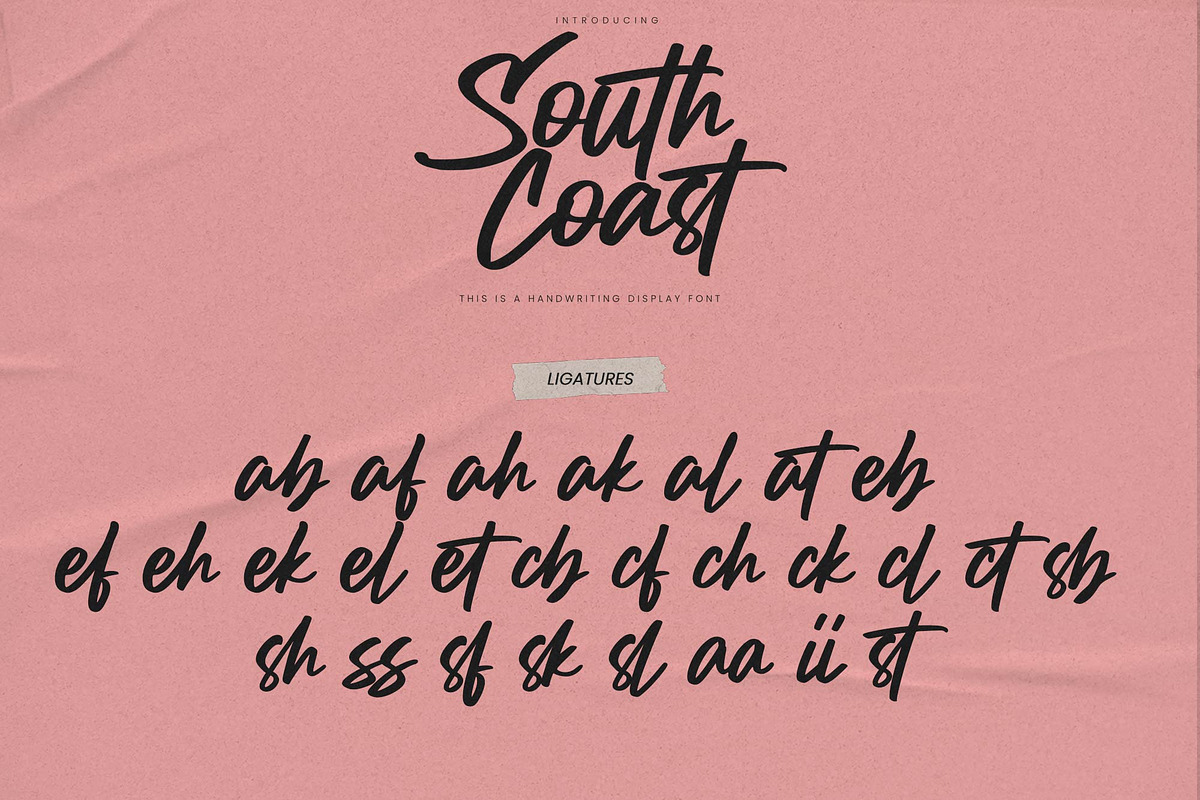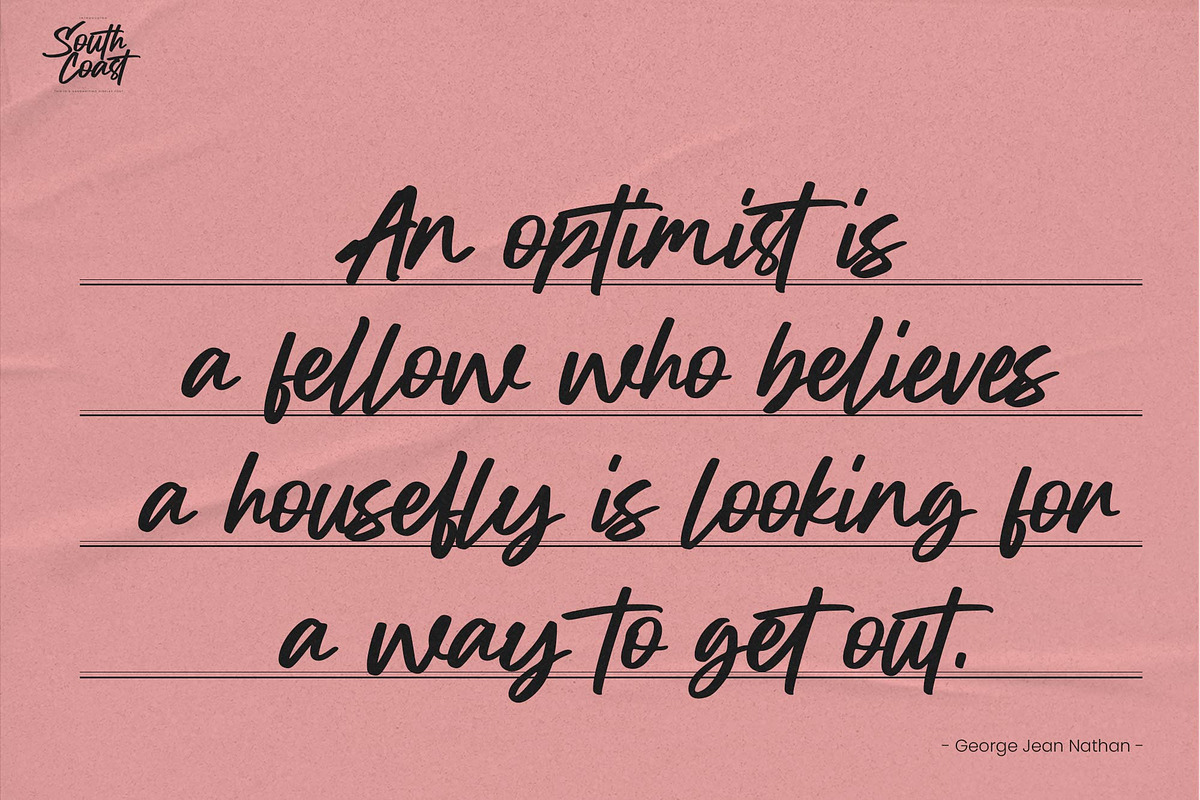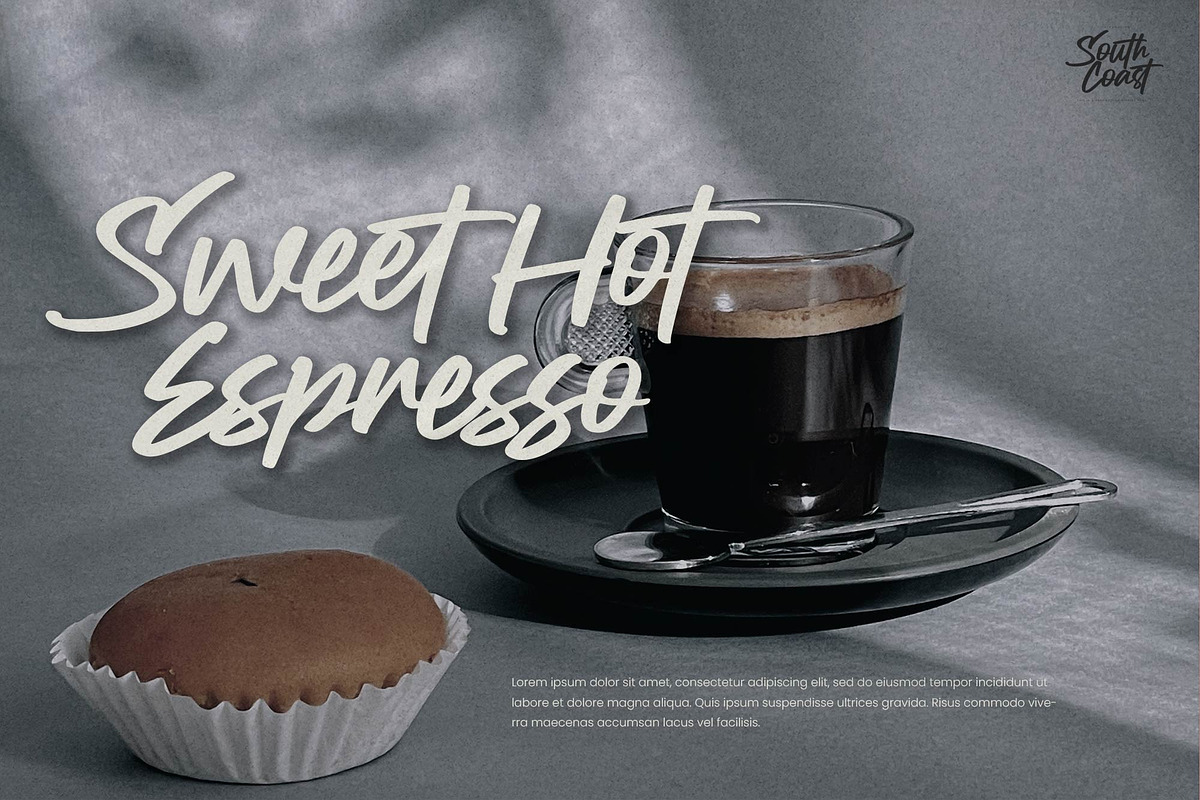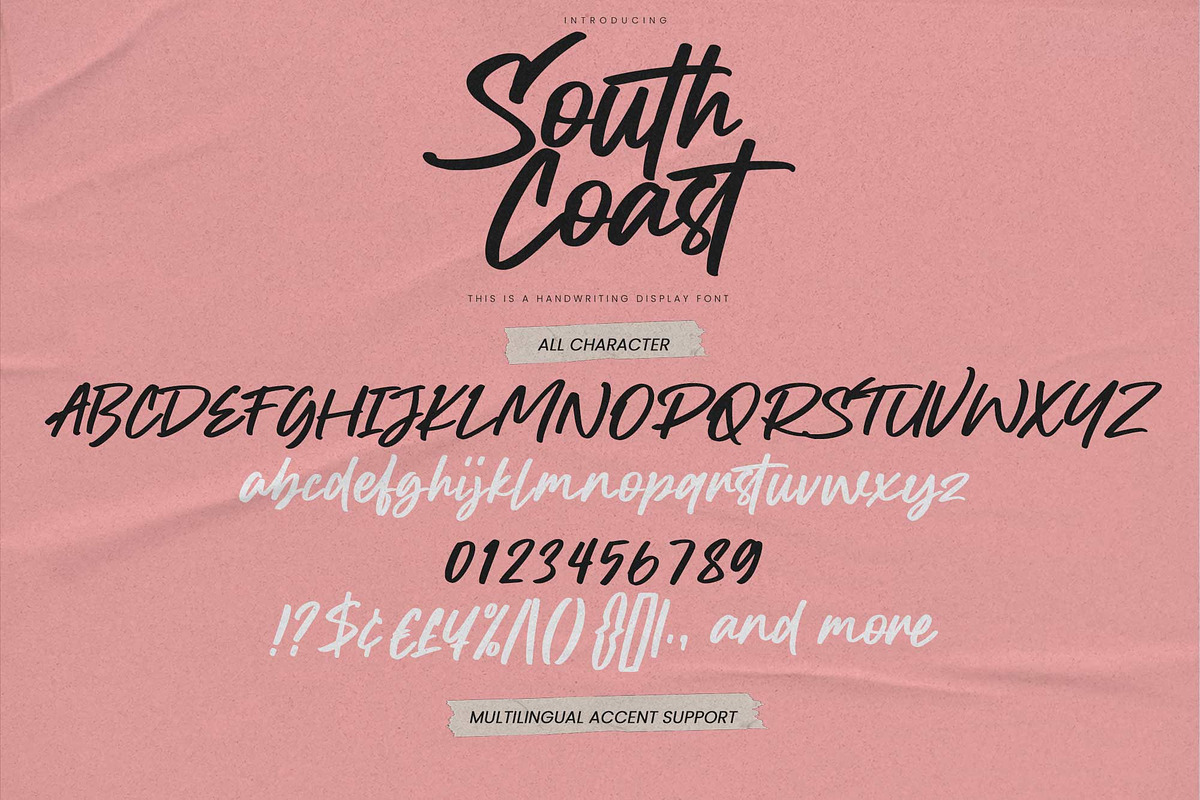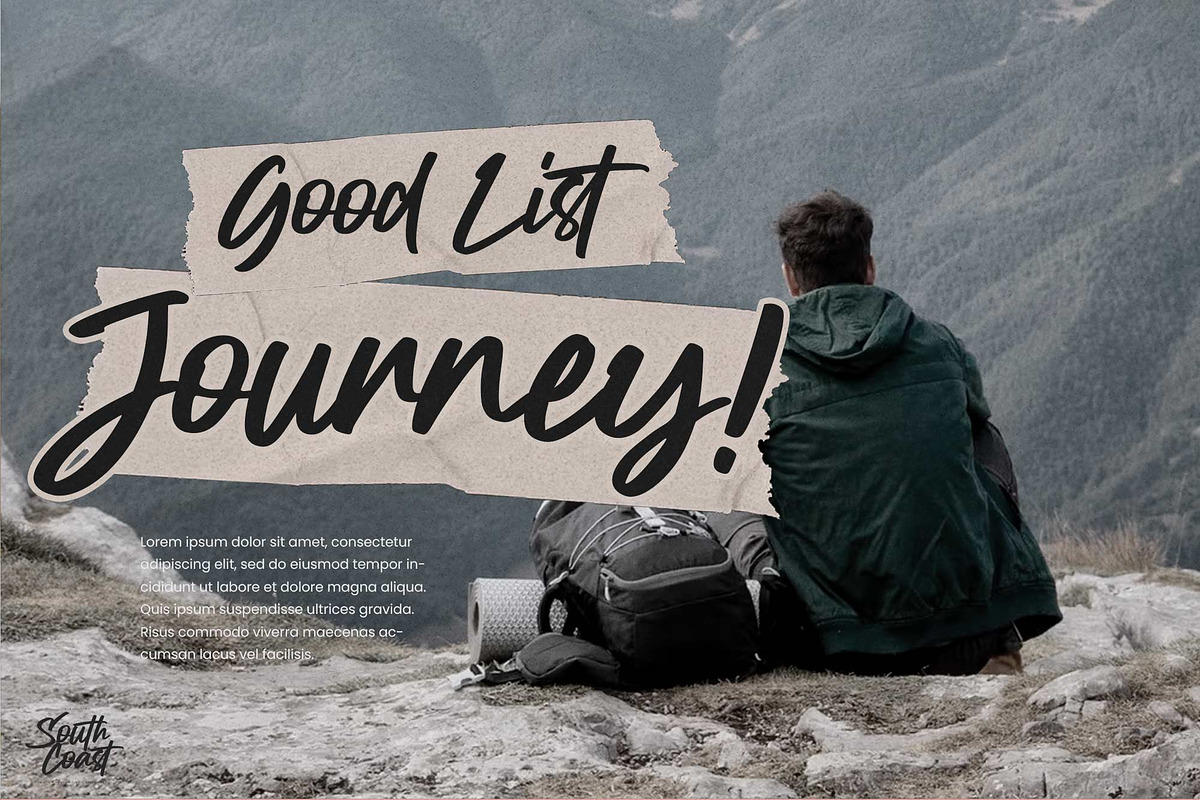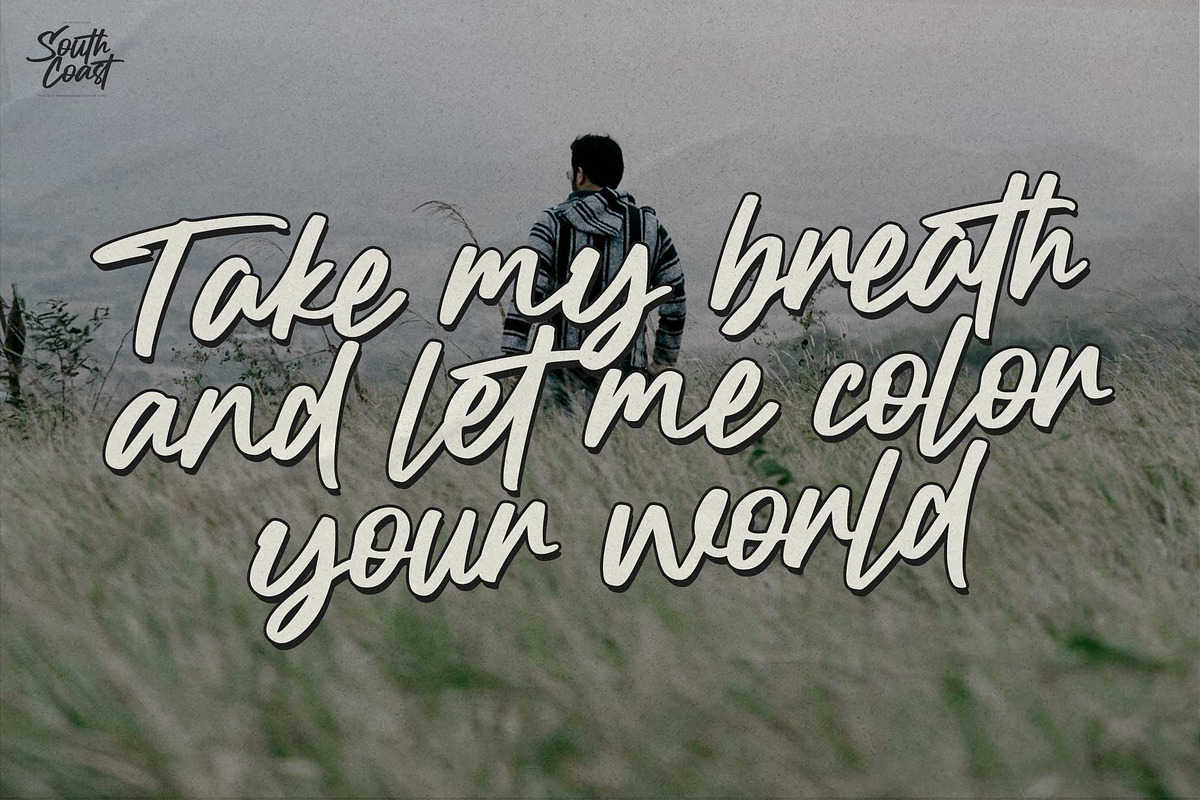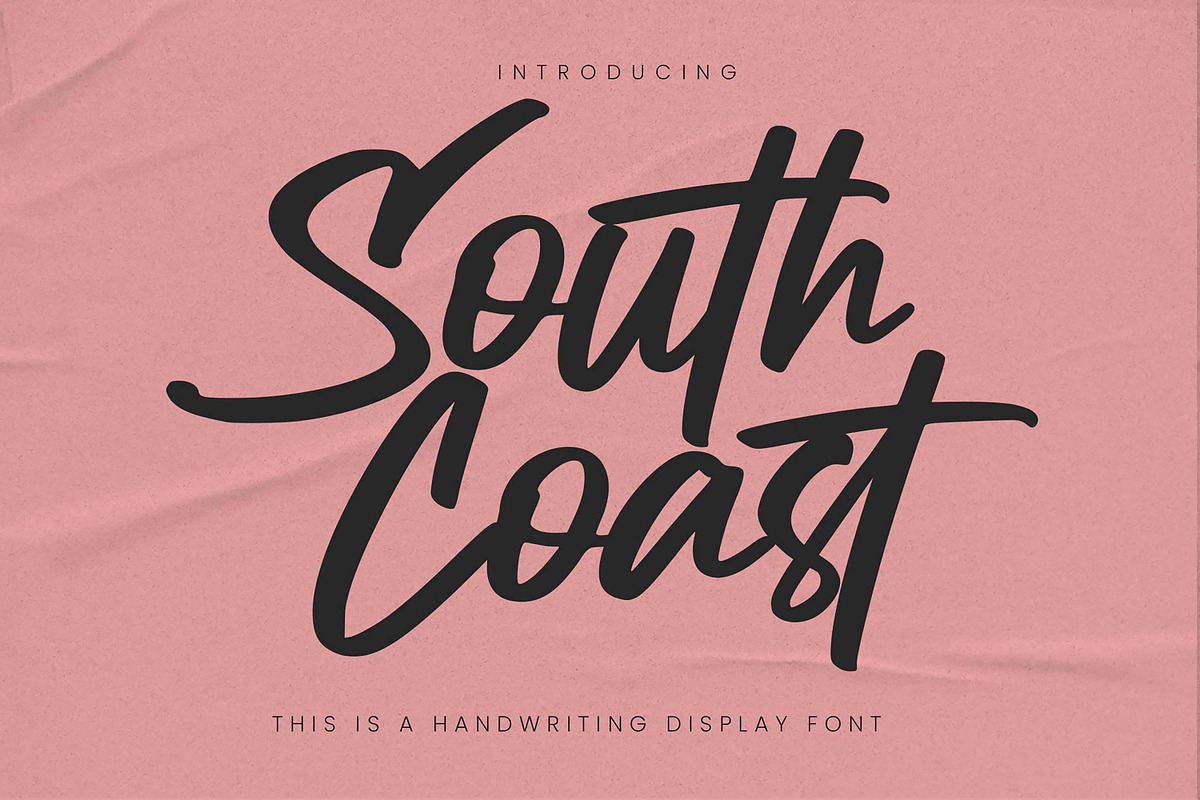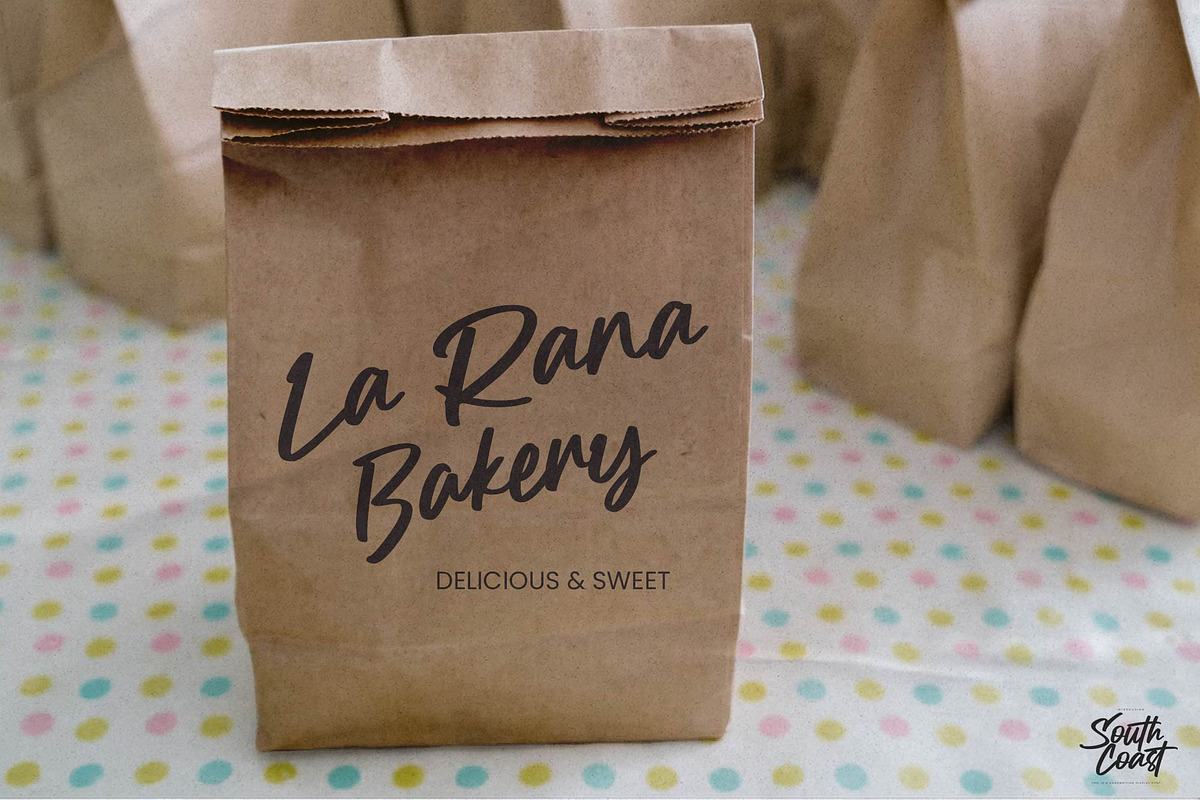
South Coast - Handwritting Display
South Coast -This a Handwritting Display Font, modern style and script that is written casually and quickly. The best for labels, poster, project designs look ,authentic and cool . It’s perfect for labels, quotes, posters, DIY projects, branding, packaging, greeting cards, websites, photography overlays, signs, scrapbooking, tags and so much more! That is why South Coast has a textured, and unique characteristic more natural look. You can activate Ligatures OpenType panel.